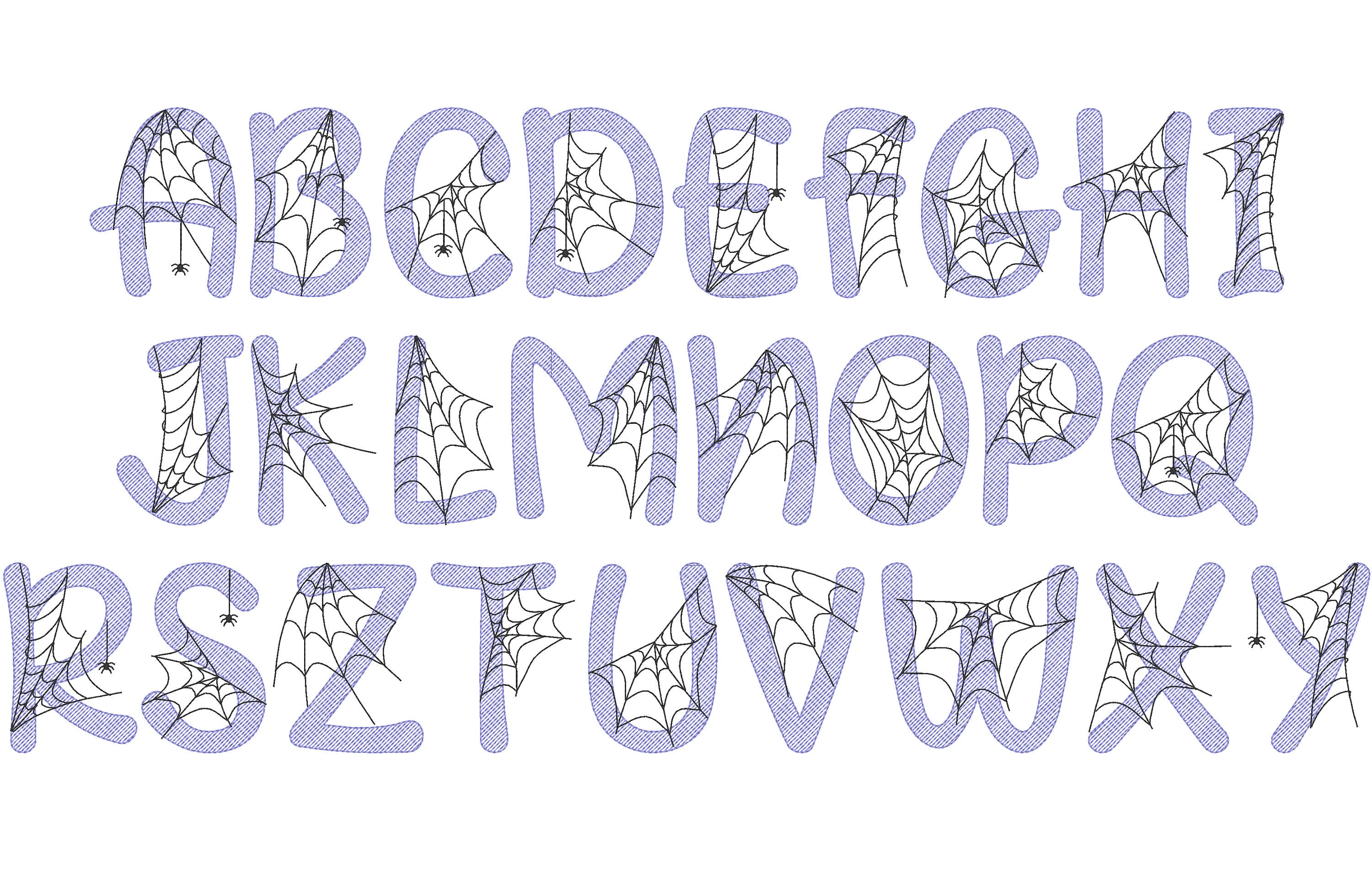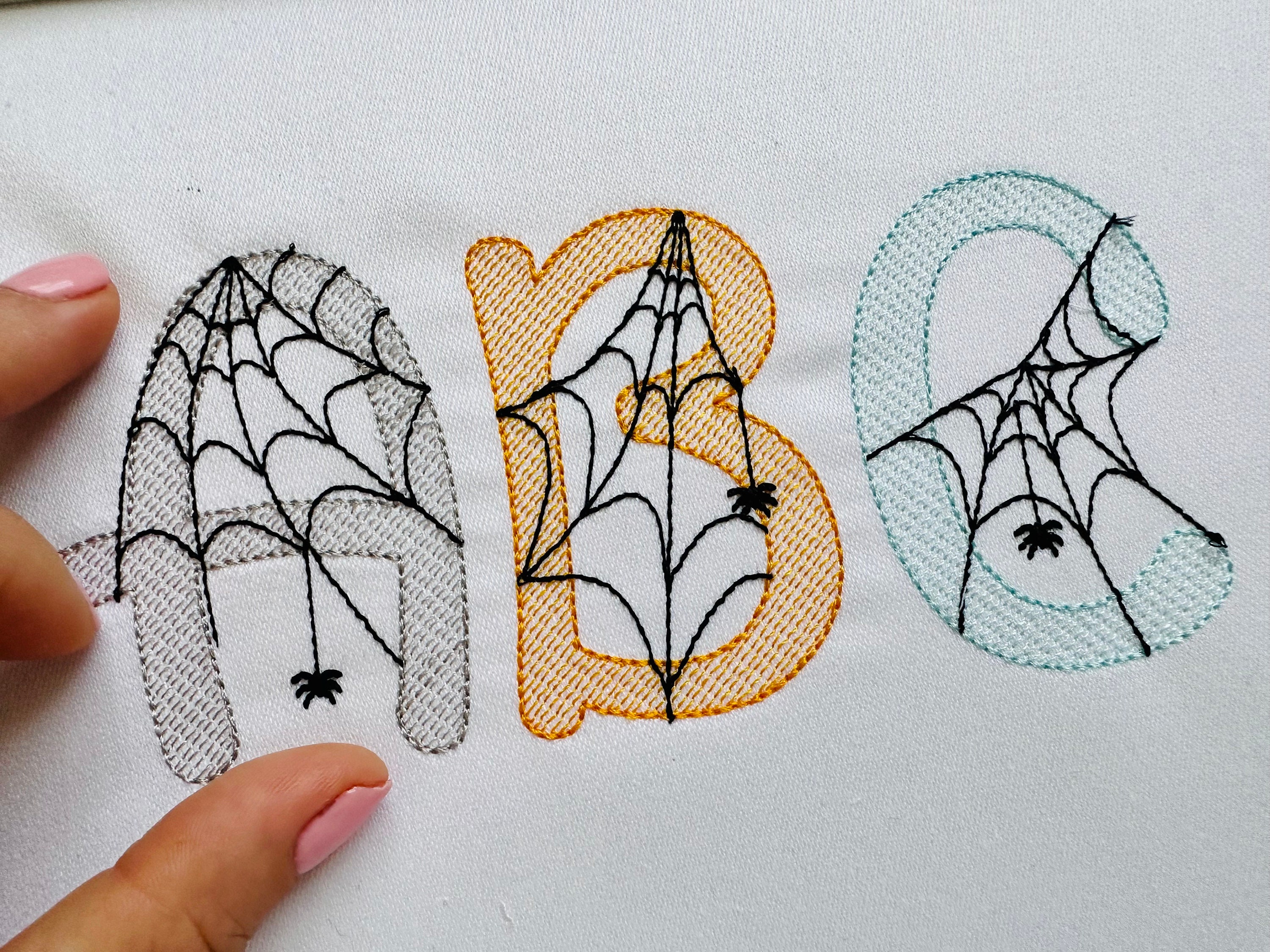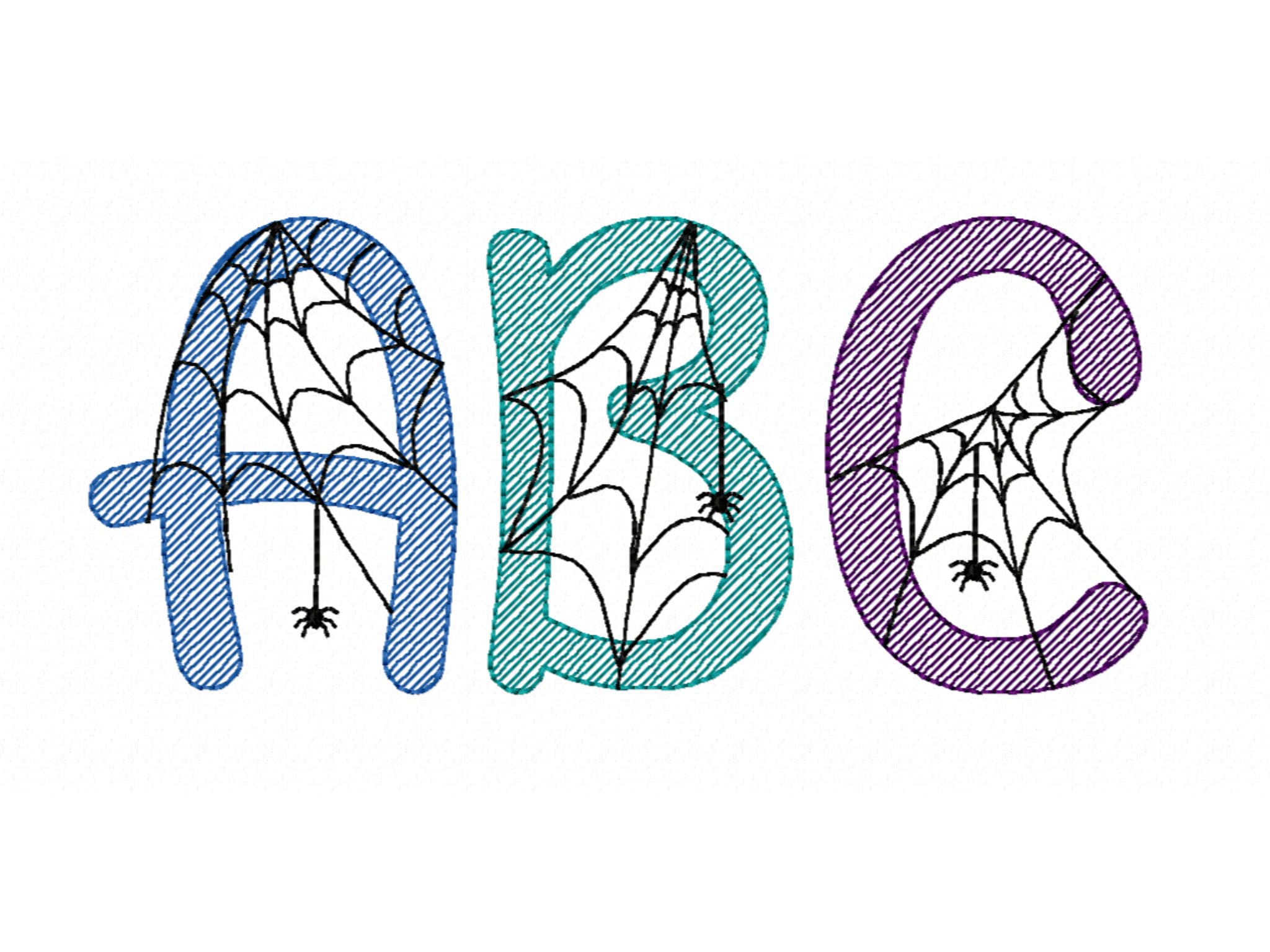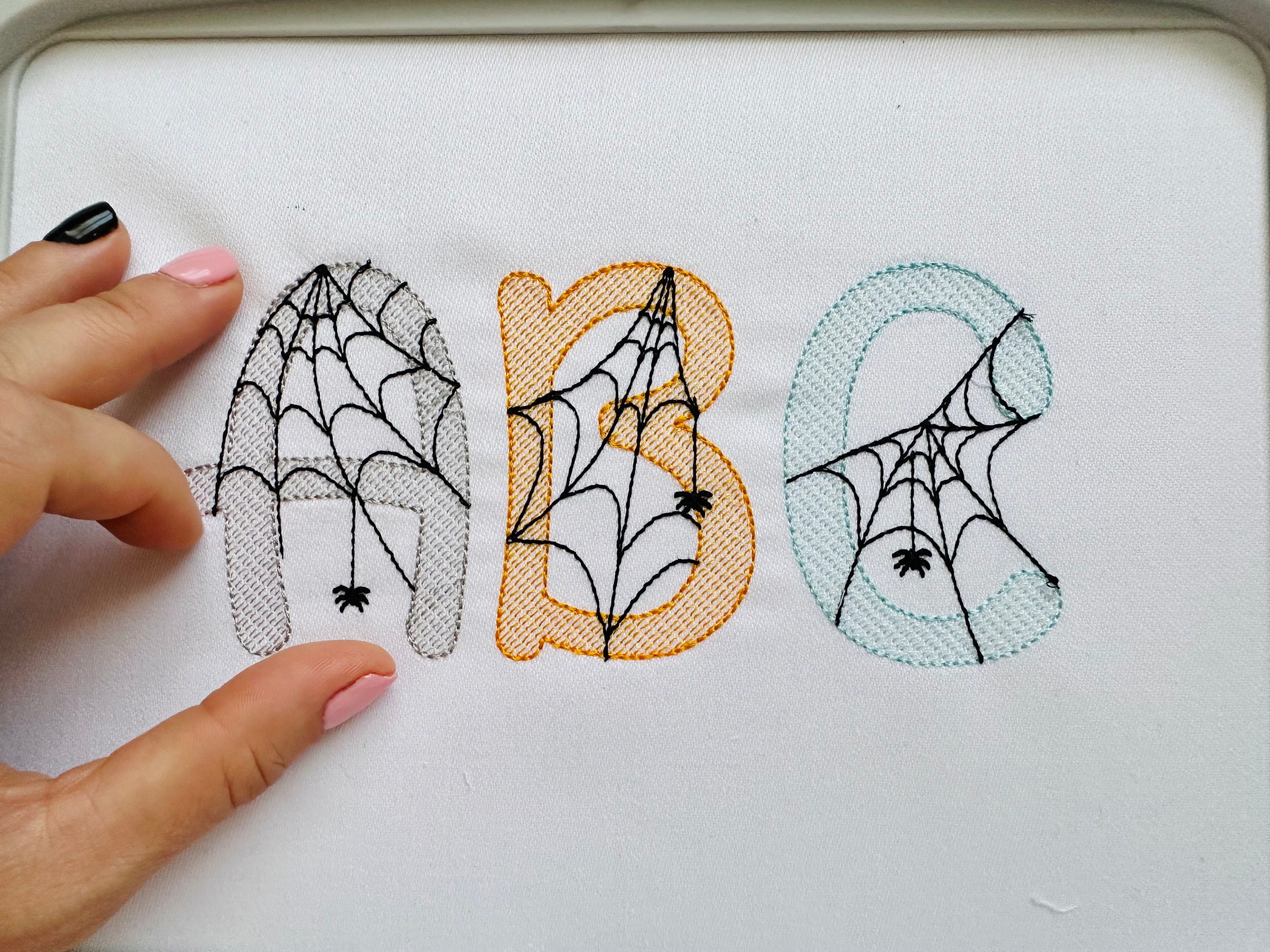
Spiderweb Font embroidery spider's web alphabet Halloween cobweb spooky scary letters with spider web machine embroidery designs Boo font, BX included
Whole alphabet A-Z uppercase letters
This is a light stitch design. The background fabric looks through. Stunning effect!
The spider web pattern is a part of the design.
Please note, the spider is NOT on each letter.